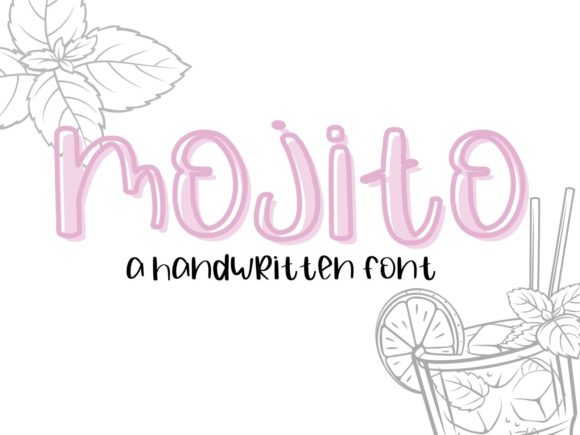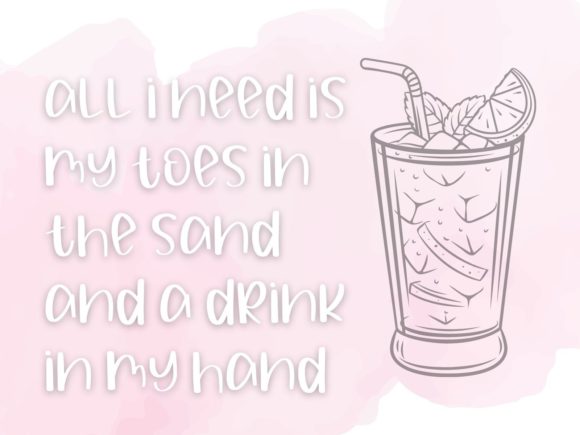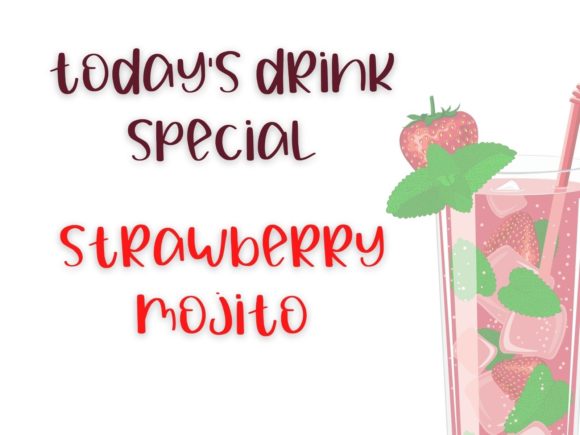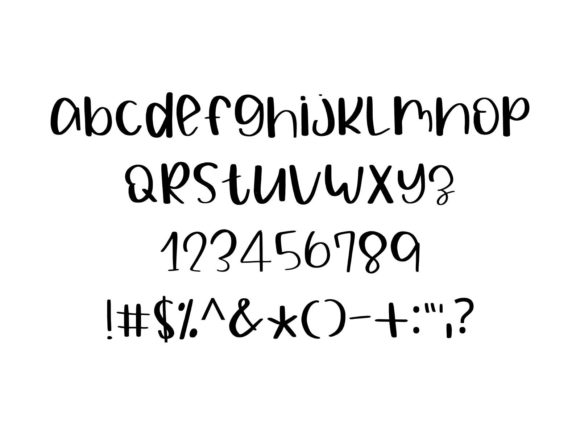
Mojito Font
About Mojito Font
Mojito is a fun handwritten font, perfect for all your crafting or business needs! It is a great match for making SVG’s, stickers, and cards, to designing a menu or flyers for your business. Mojito is versatile!